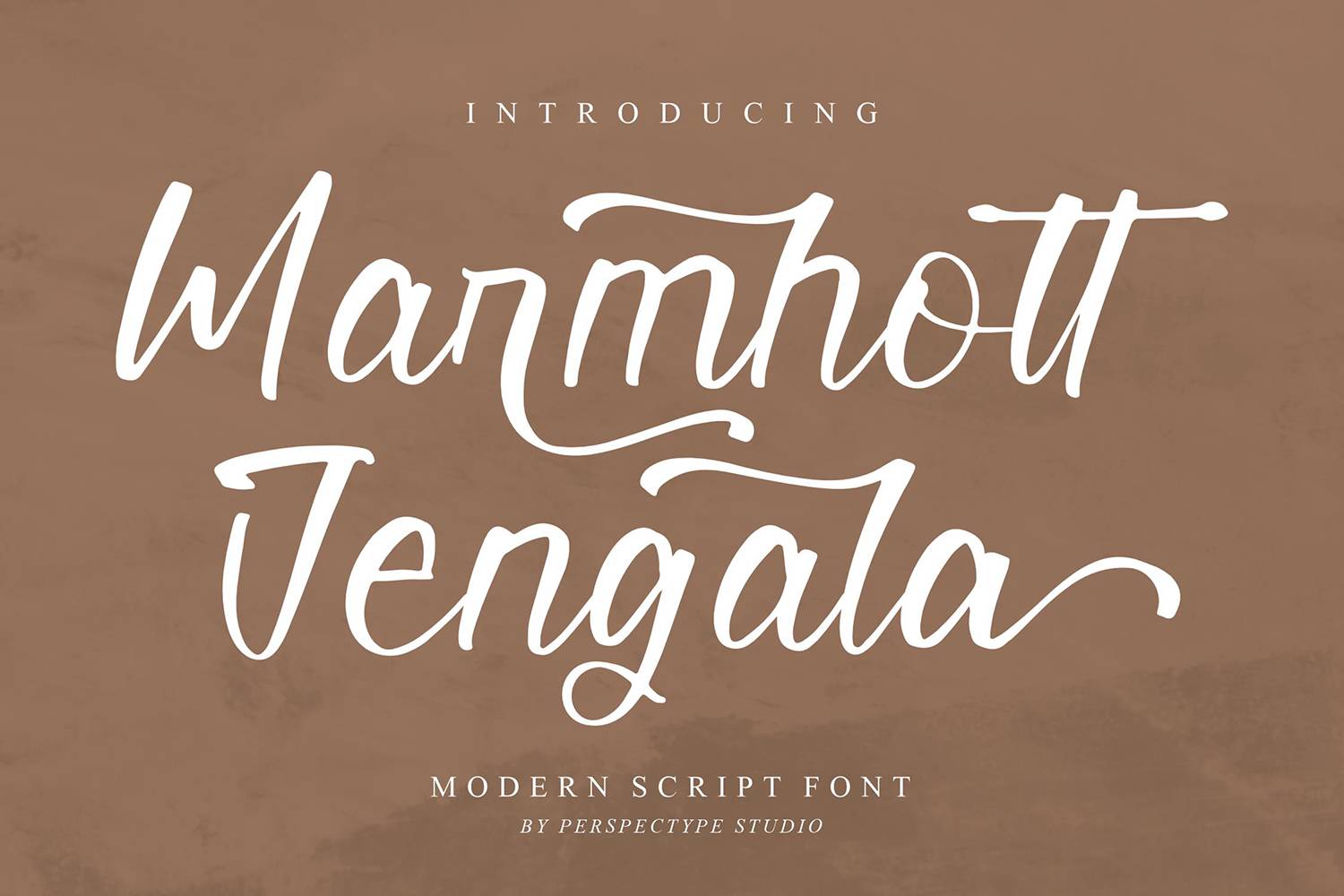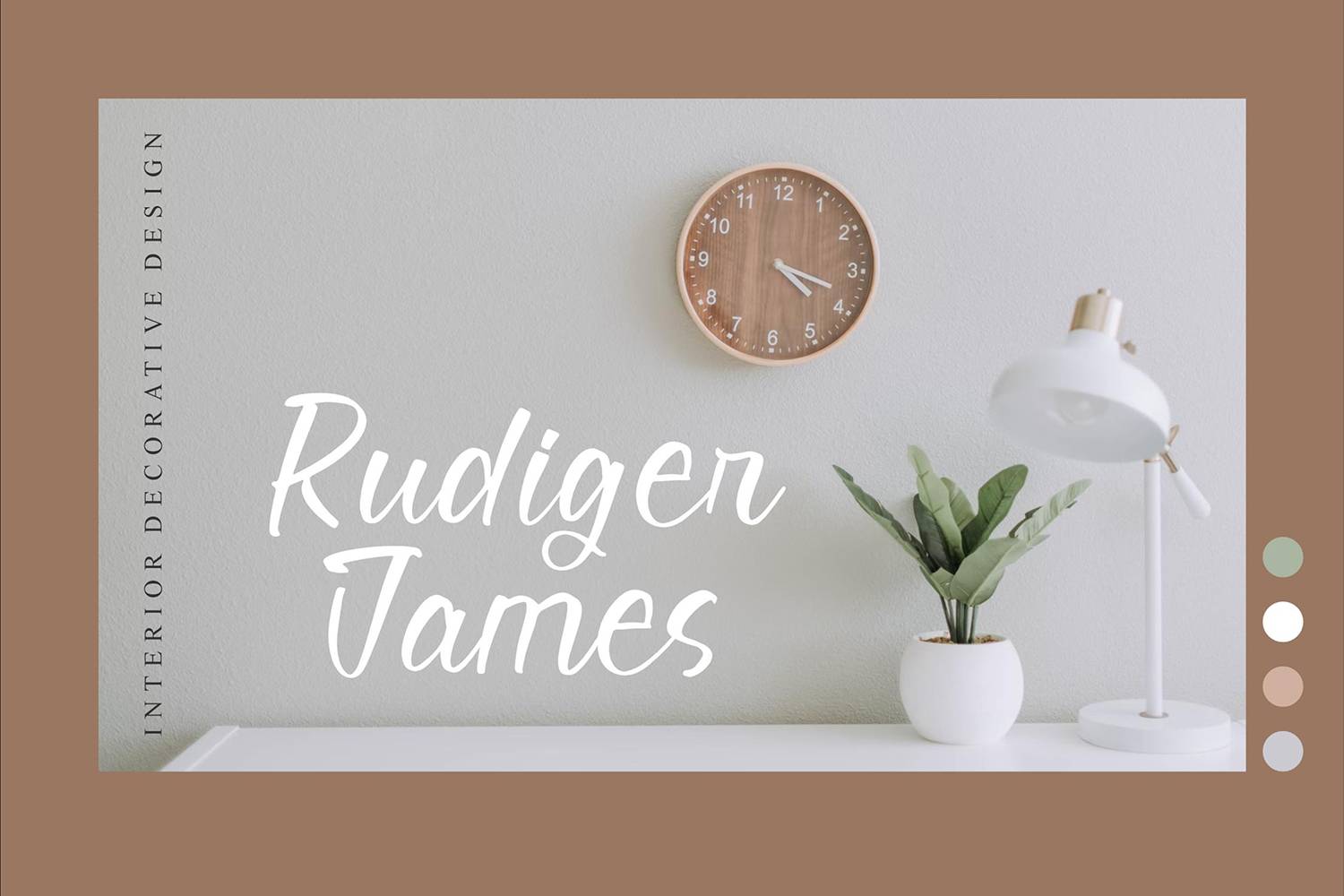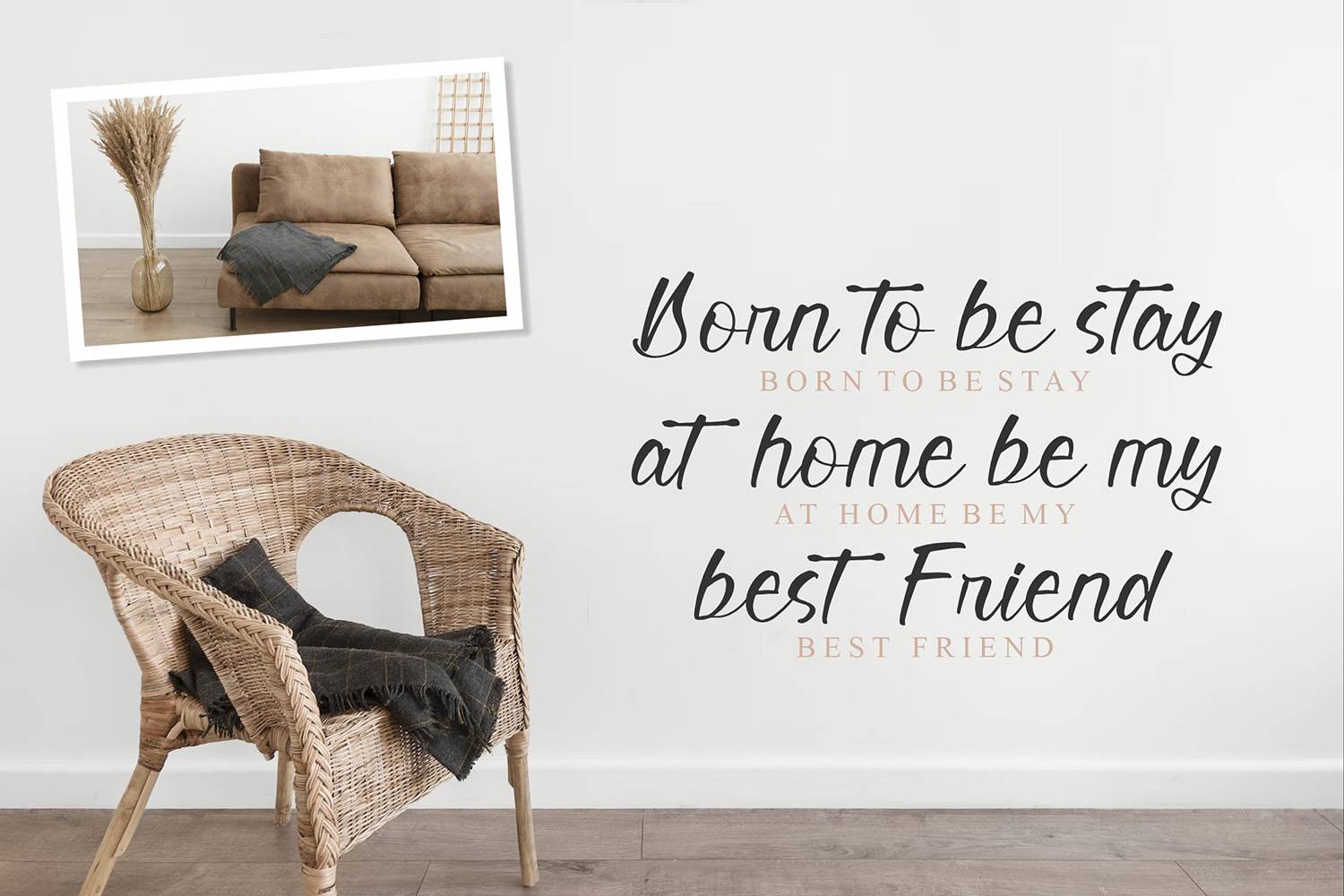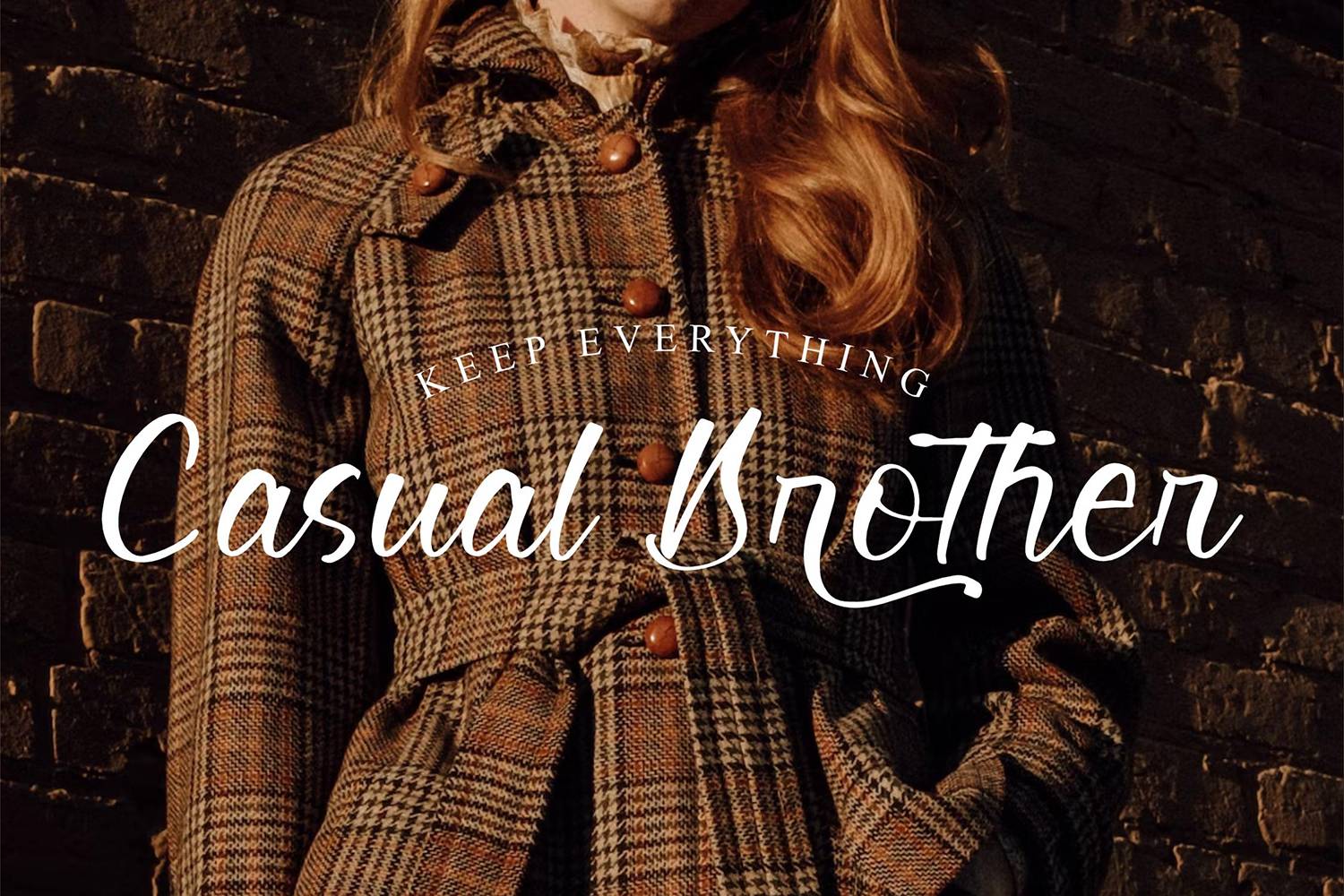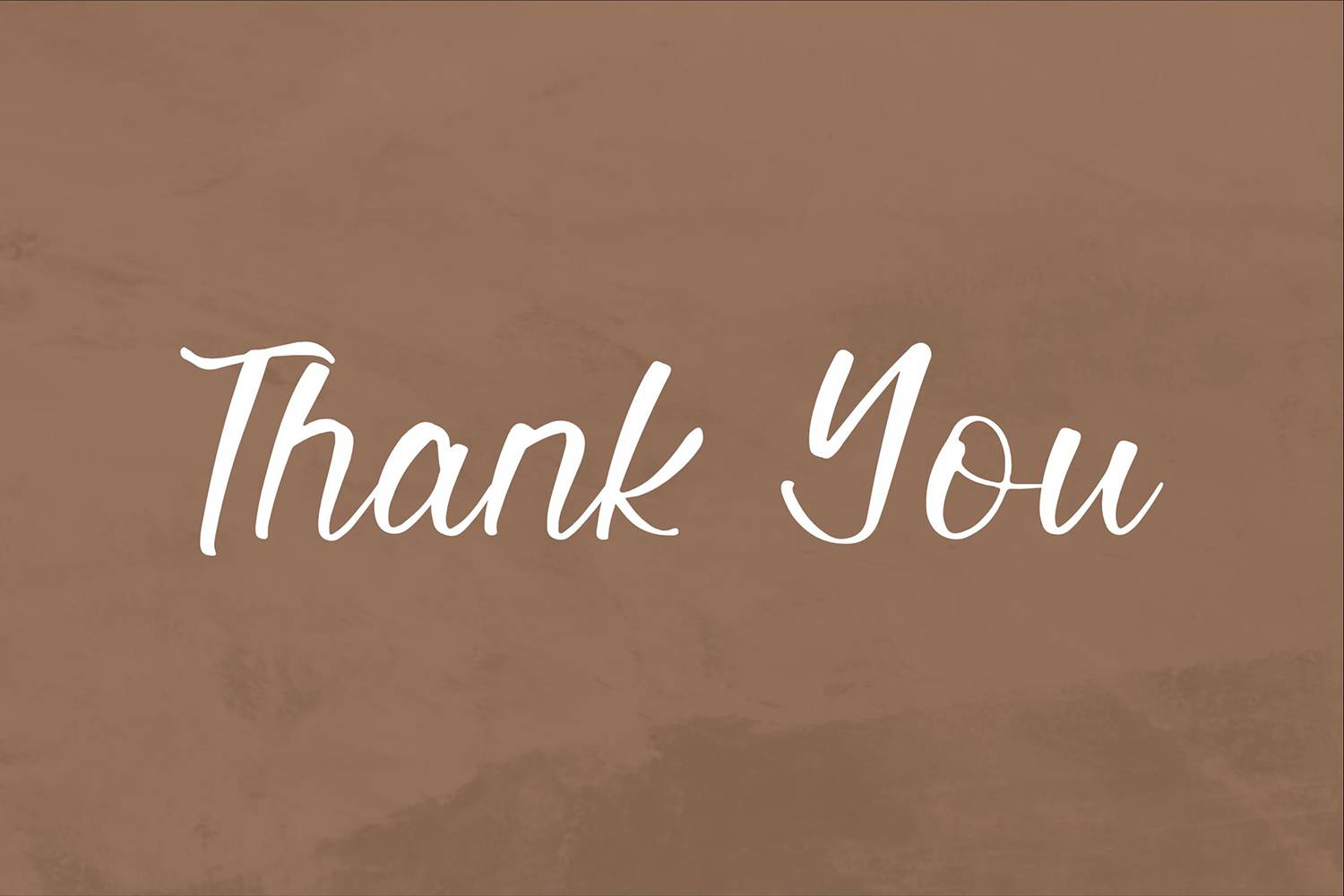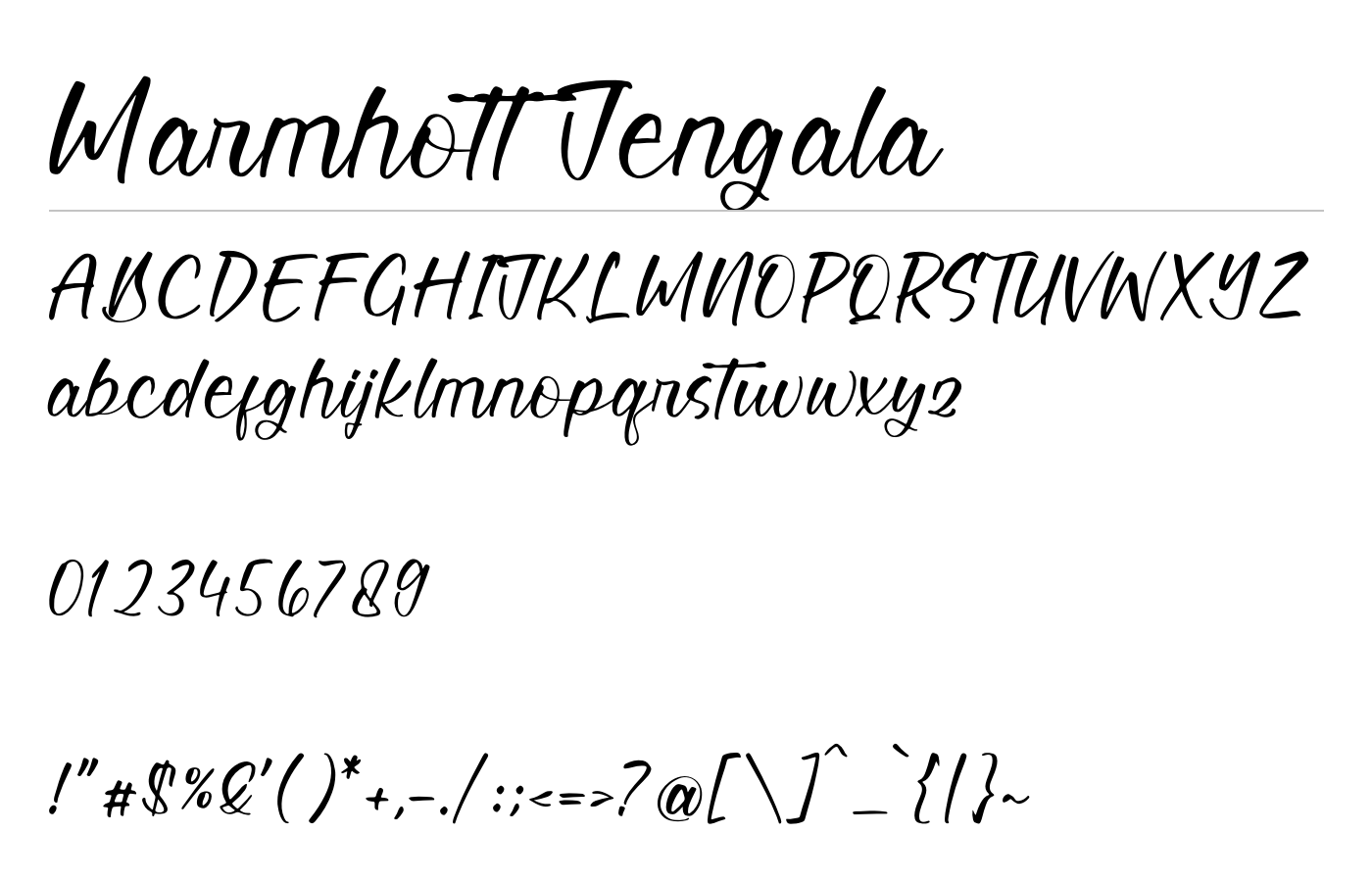
Marmhott Jengala is a lively and elegant handwritten script font featuring fluid, slender strokes with a playful yet sophisticated character. Its naturally flowing letterforms and moderate contrast give it a personal, artistic feel that works beautifully for creative branding, invitations, and stylish headlines. This font adds a modern, approachable touch wherever a warm and expressive look is desired.
Marmhott Jengala Font
About Marmhott Jengala Font